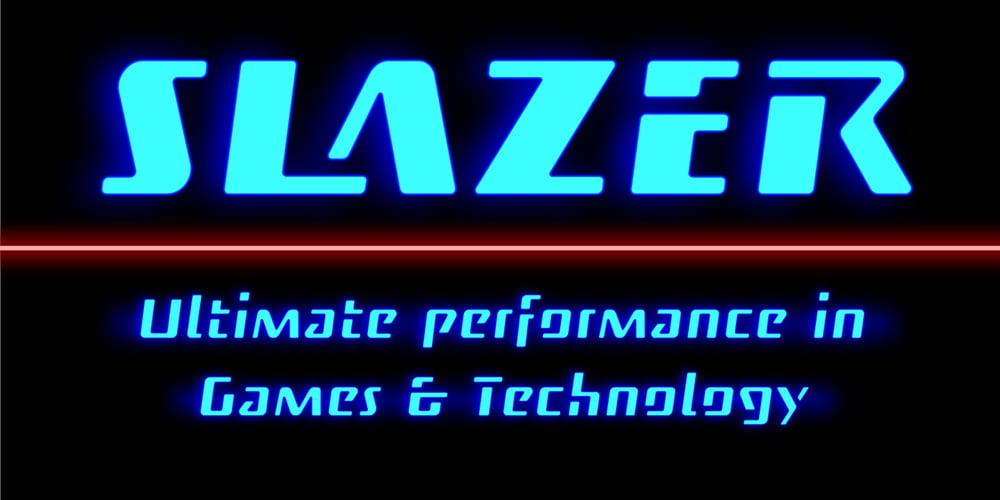
Slazer Font Family was designed by João Henrique Lopes and published by João Henrique Lopes. Slazer contains 6 styles and family package options. Slazer is a futurist font designed for a dynamic and powerful effect when it comes to science, technology, games, web, cellphones and electronics. All glyphs are open, straight and smooth, enhancing their connection with images. Slazer’s lines never touch or split: they always go somewhere… and go fast!